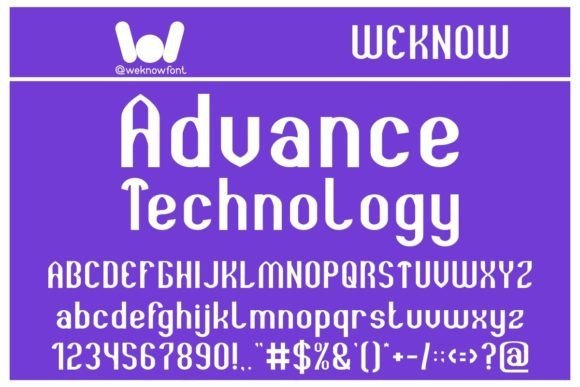
You’ve spent hours brainstorming the perfect concept, poured your heart into designing the layout, and finally, it’s time to add the finishing touches – the font. The right font can make or break the entire look and feel of your project. For designers, finding a versatile and stylish font that can adapt to various mediums can be a challenge.
Enter the Advance Technology Font, a basic yet elegant display font designed for maximum flexibility. This font is perfect for logos, headlines, corporate identities, and any other creative project that requires a clean and modern look. Whether you’re working on a logo, poster, or website, Advance Technology Font is an excellent choice. Its simplicity and sophistication make it a valuable asset for designers, allowing them to focus on the creative aspects of their project.
Advance Technology Font Key Features
- Font Family: A wide range of font styles and weights are available, including serif, sans-serif, script, and display fonts.
- Character Set: Supports a vast range of characters, including Latin, Cyrillic, Greek, and many non-Latin scripts, making it suitable for global applications.
- Smart Glyphs: Features advanced glyph rendering, including ligatures, swashes, and contextual alternates, adding a touch of elegance and sophistication to text.
Advance Technology Font Review
Overall, I think the Advance Technology Font has some promising qualities, but also some areas for improvement. ✨ Here are some of the things that work well:
- Unique design: The font has a futuristic feel to it, which could be great for sci-fi or tech-related projects.
- Legibility: At larger font sizes, the font is quite readable and easy to understand.
- Clean lines: The font’s clean lines and minimal ornamentation make it a great choice for modern and sleek designs.
However, there are some limitations that might hold it back: ⚠️
- Limited character set: The font seems to be missing some characters, including certain punctuation marks and special characters.
- Inconsistent spacing: At smaller font sizes, the spacing between characters can be inconsistent, making it look a bit rough.
- Lack of italics: There doesn’t seem to be an italic version of the font, which can make it difficult to use for certain types of text.
Overall, I think the Advance Technology Font has potential, but it needs some work to become a truly effective font. With some tweaks to address its limitations, I think it could be a great choice for certain projects.
The Advance Technology Font is ideal for:
- Designing futuristic and high-tech websites and applications.
- Creating futuristic and sci-fi themed graphics and illustrations.
- Adding a touch of modernity and innovation to corporate branding and marketing materials.
Advance Technology Font Project Ideas
Project 1: Futuristic Cityscape Mural
The Futuristic Cityscape Mural project involves creating a large-scale digital artwork that showcases a futuristic cityscape using the Advance Technology Font.
Project 2: Cyberpunk-Themed Poster
The Cyberpunk-Themed Poster project involves designing a poster that showcases a futuristic cityscape or a cyberpunk-inspired theme using the Advance Technology Font.